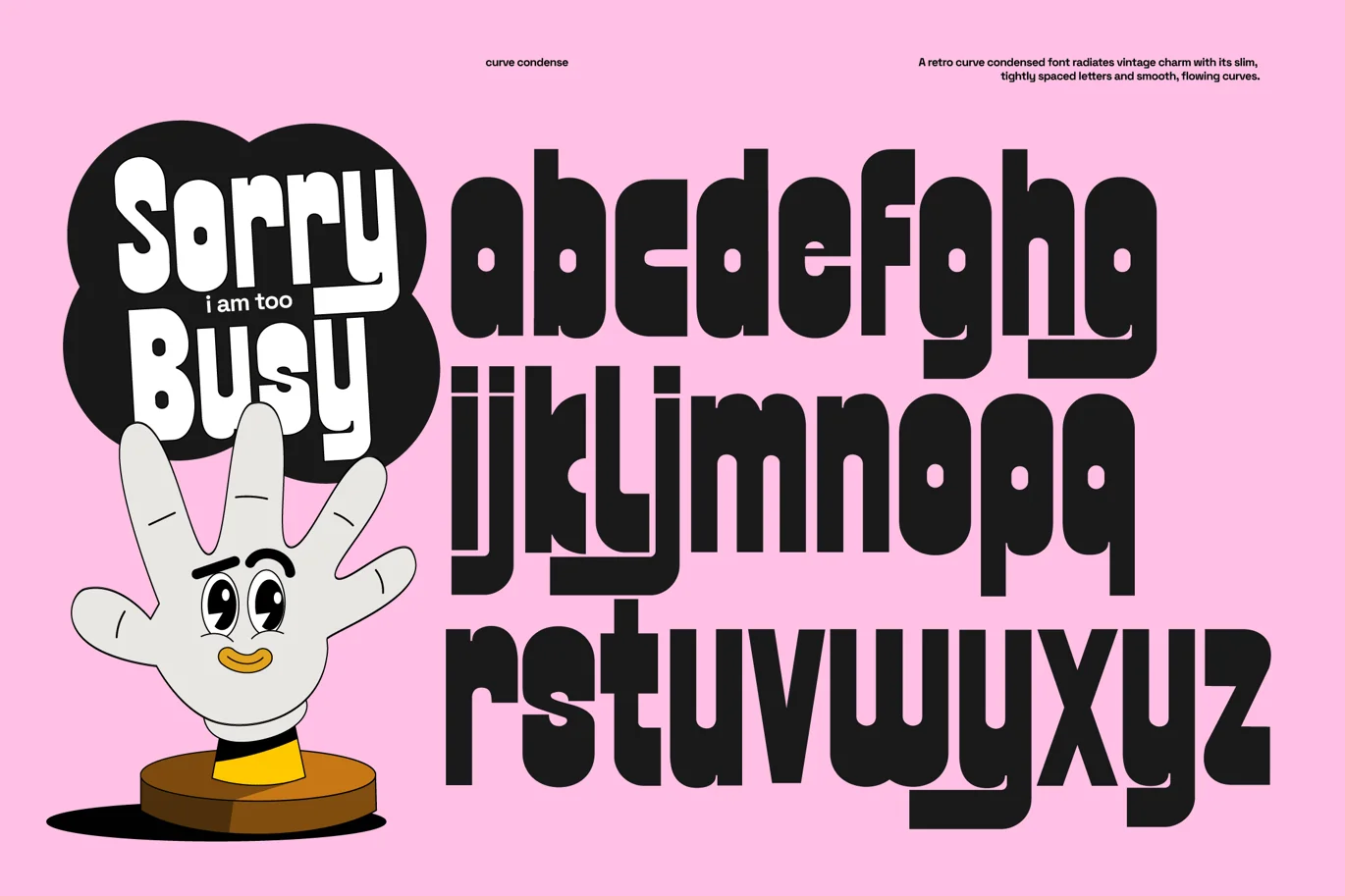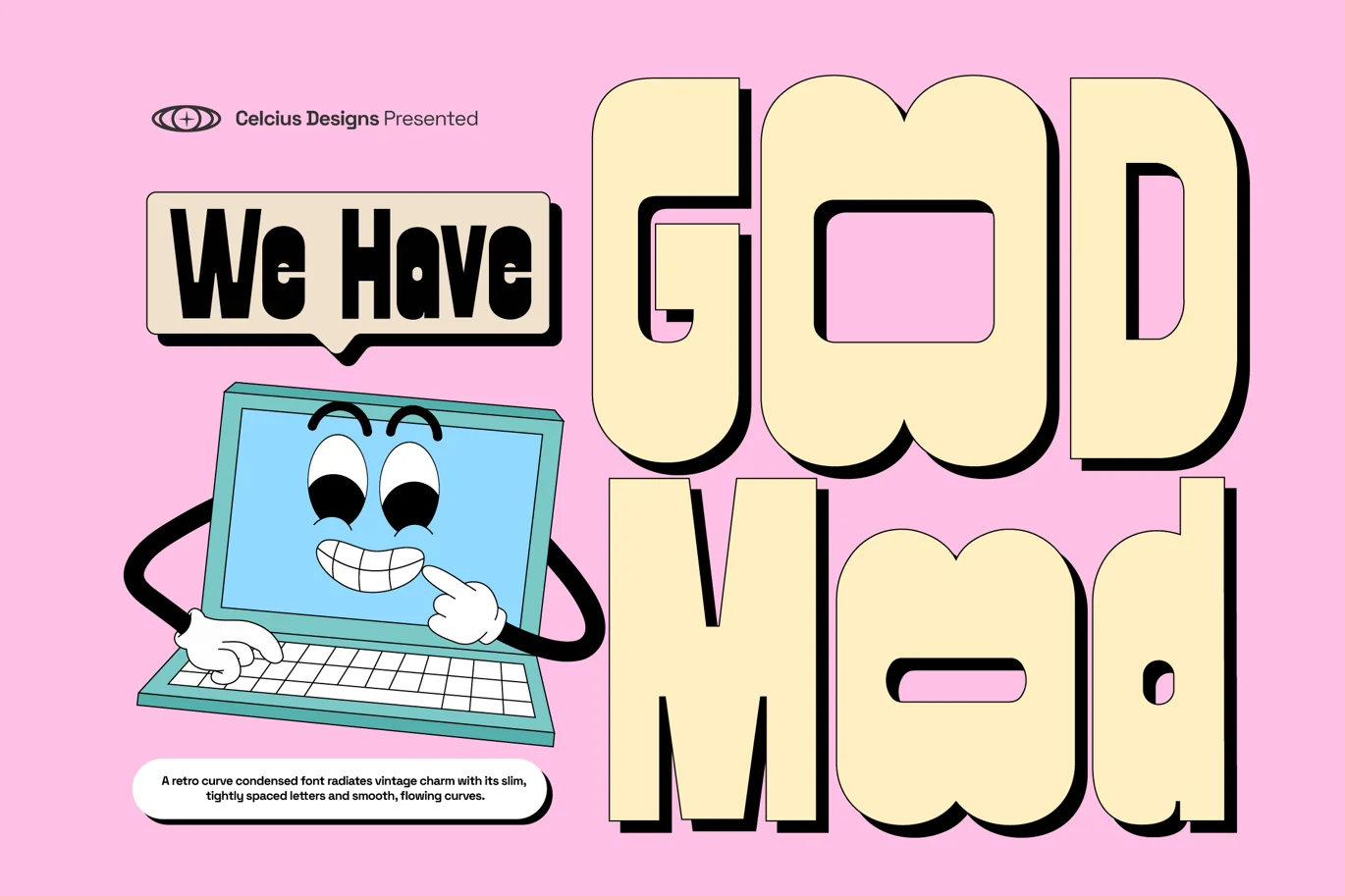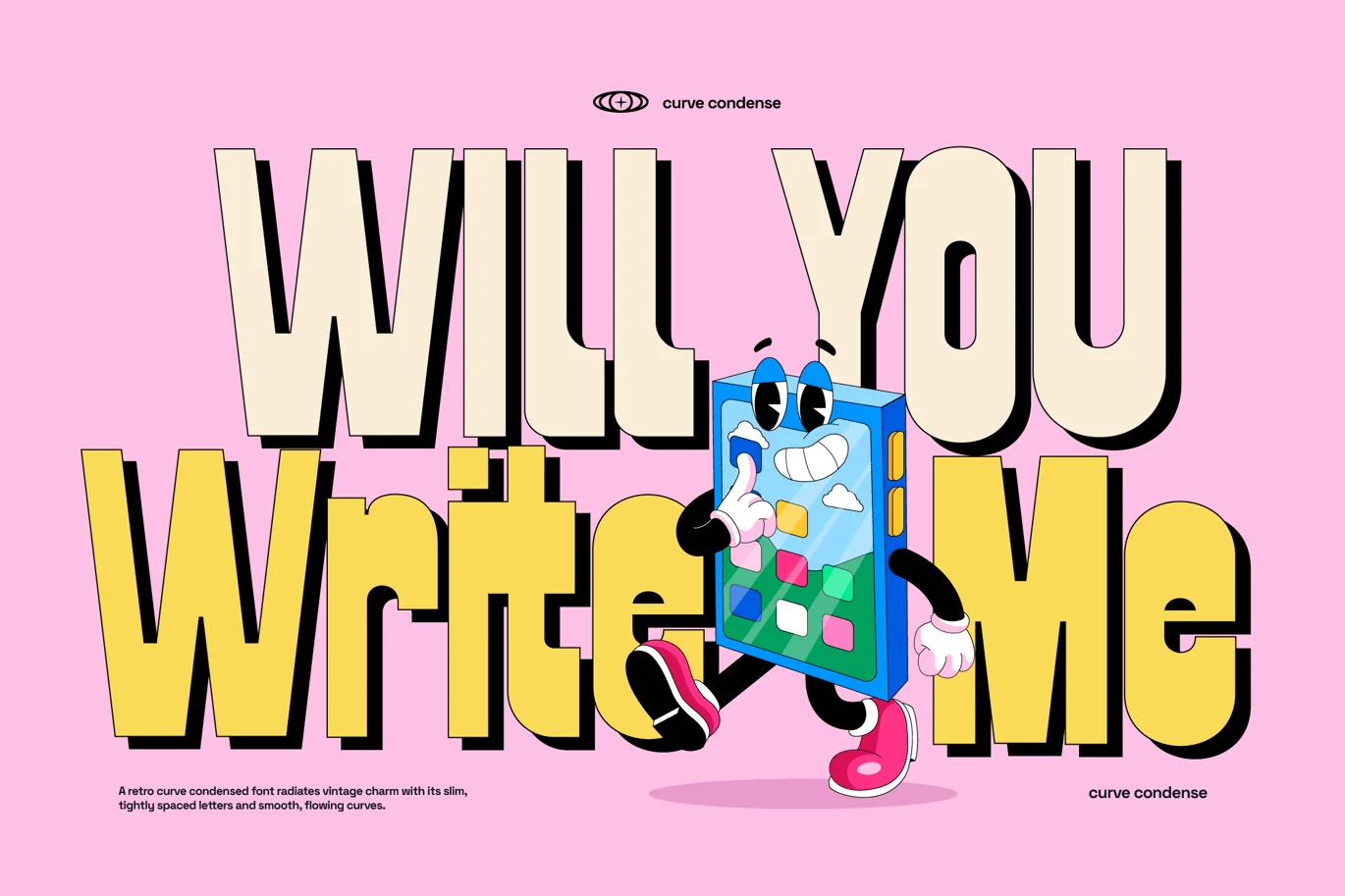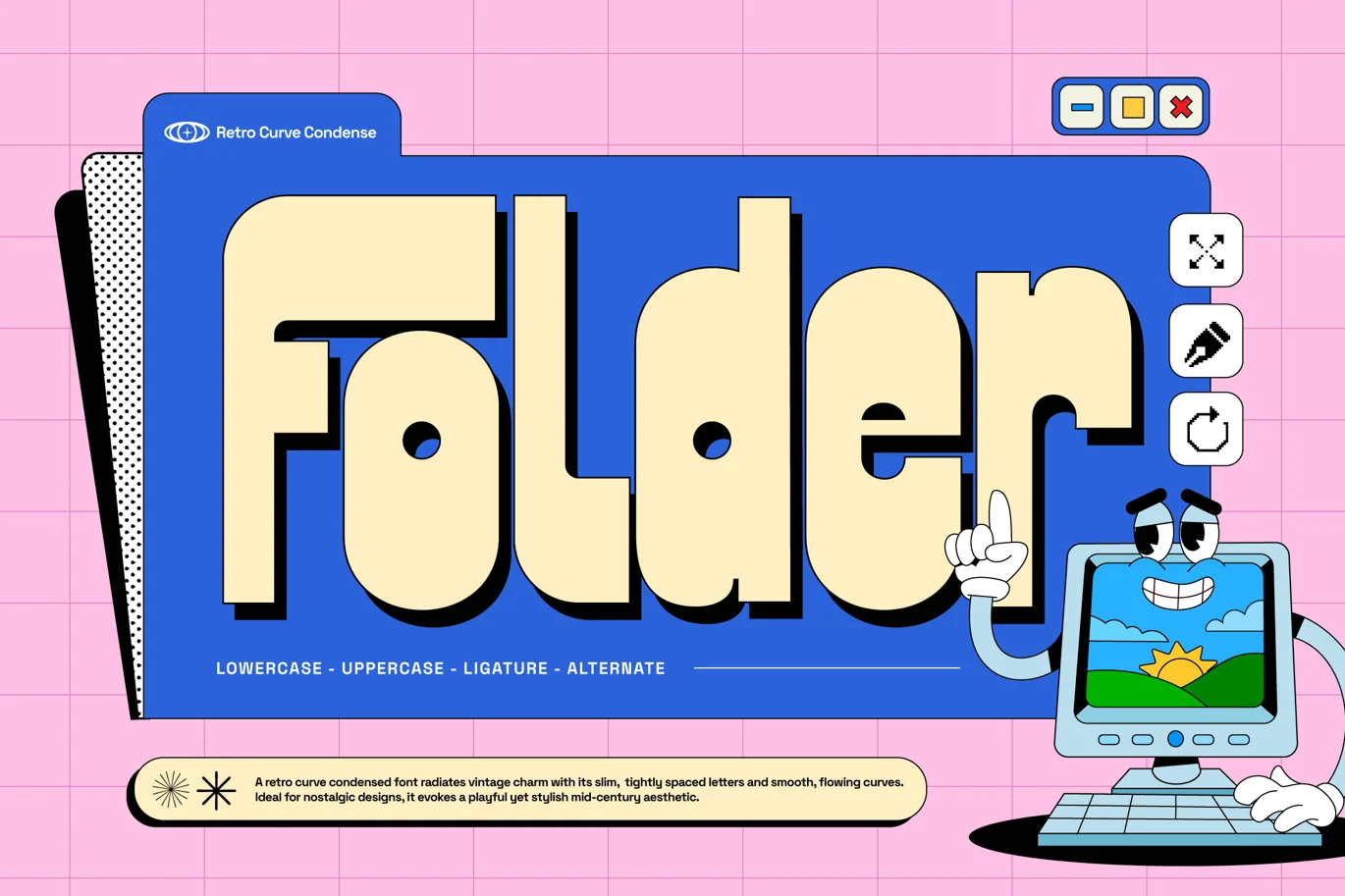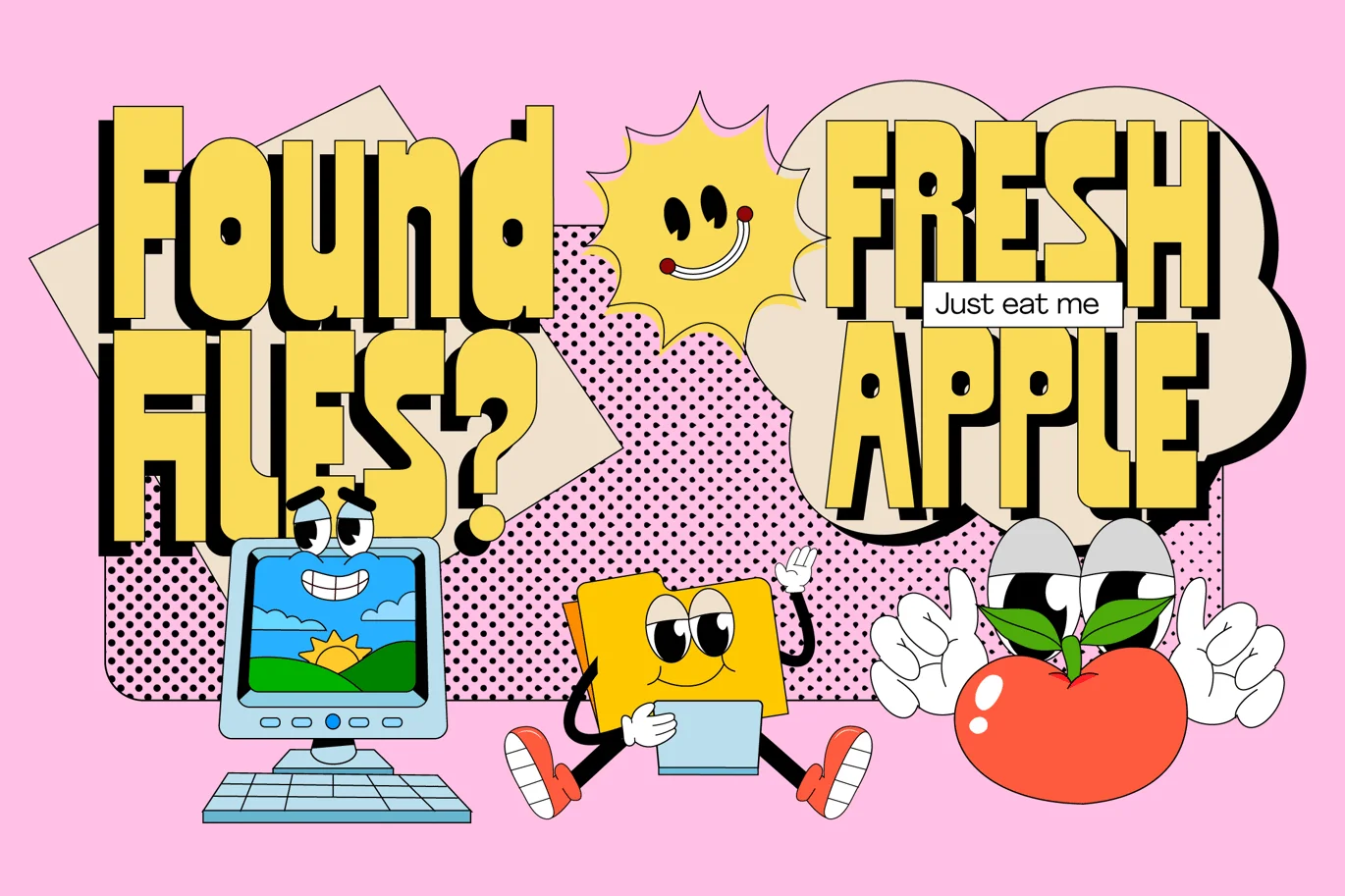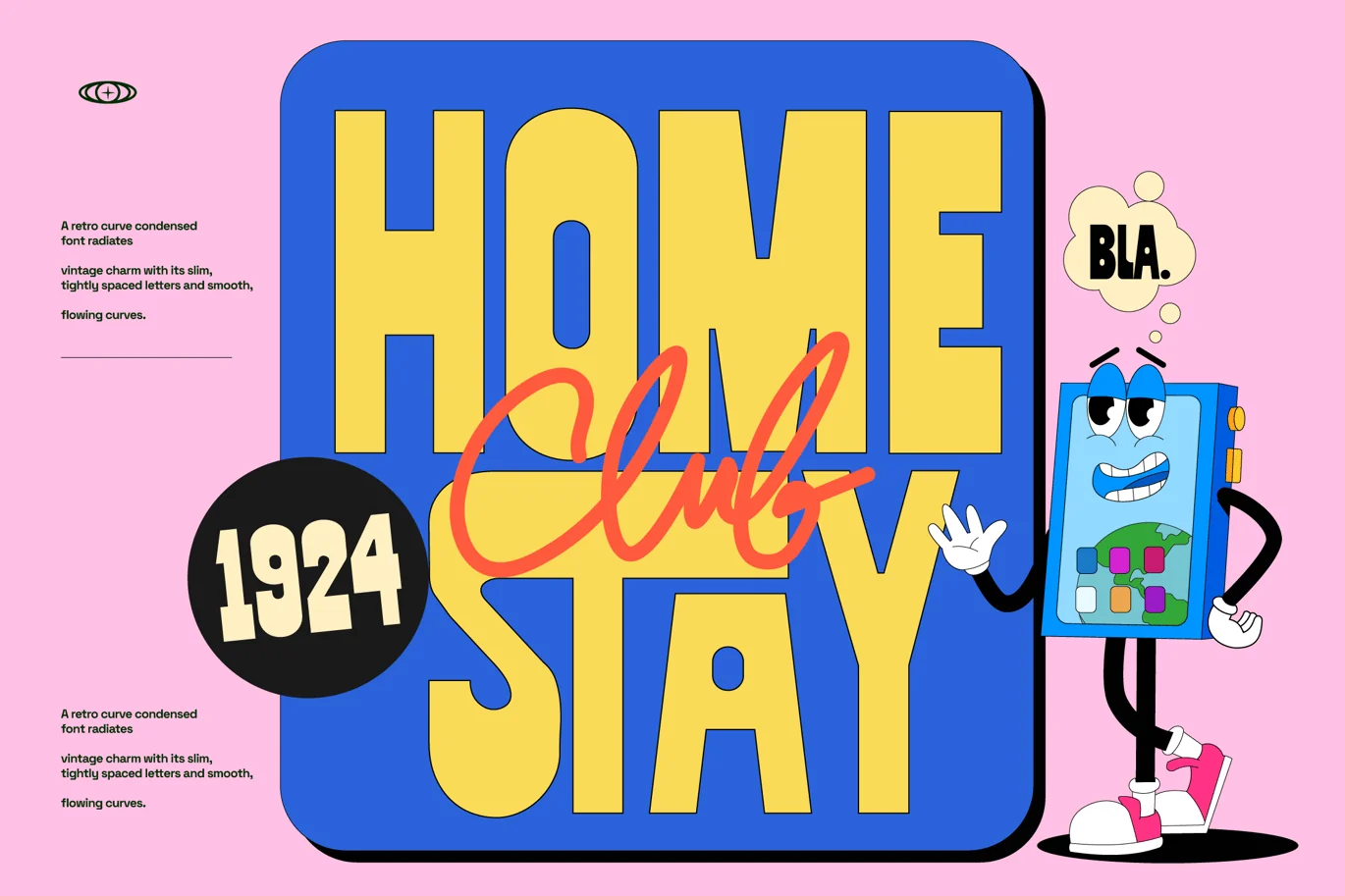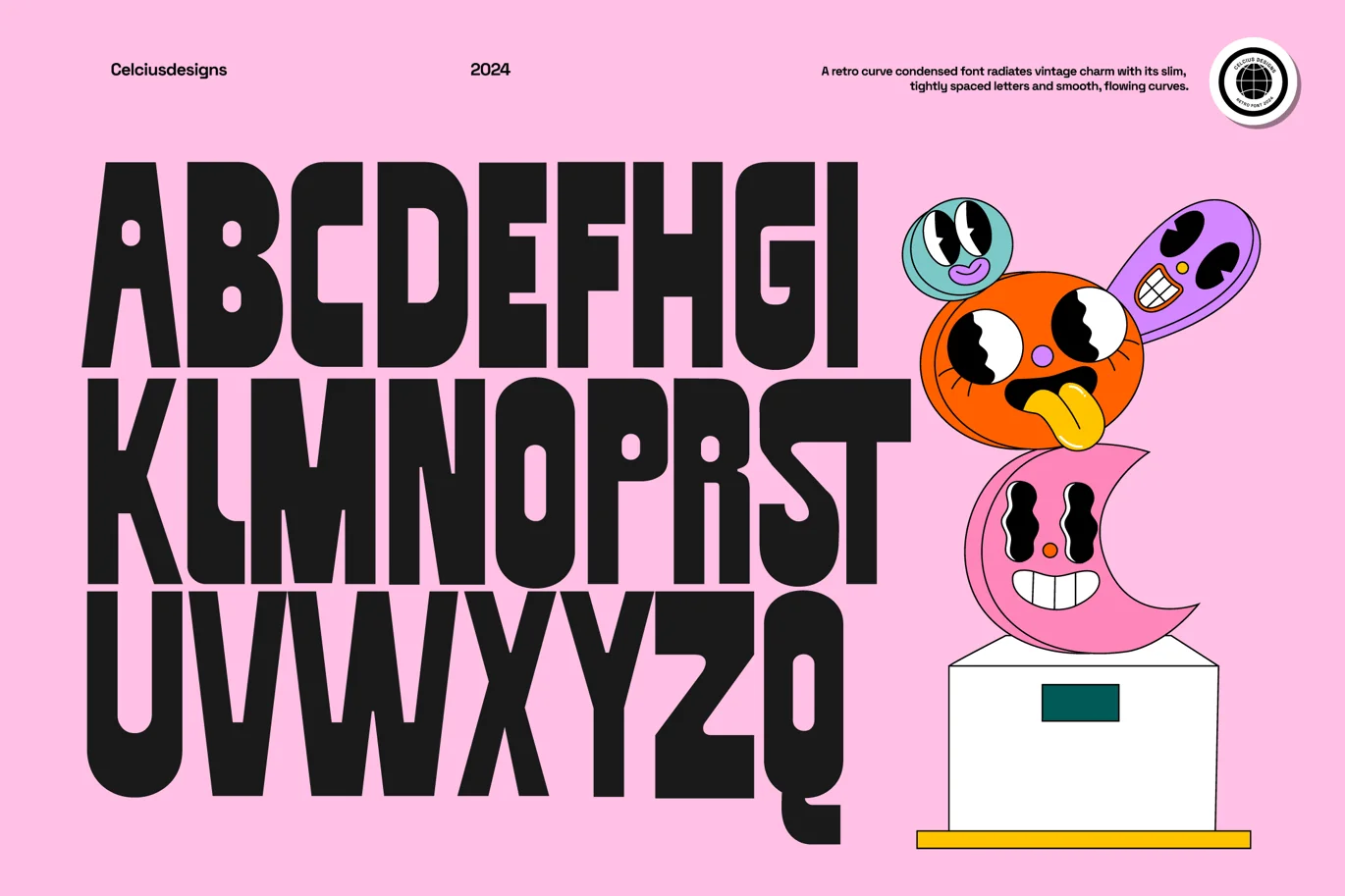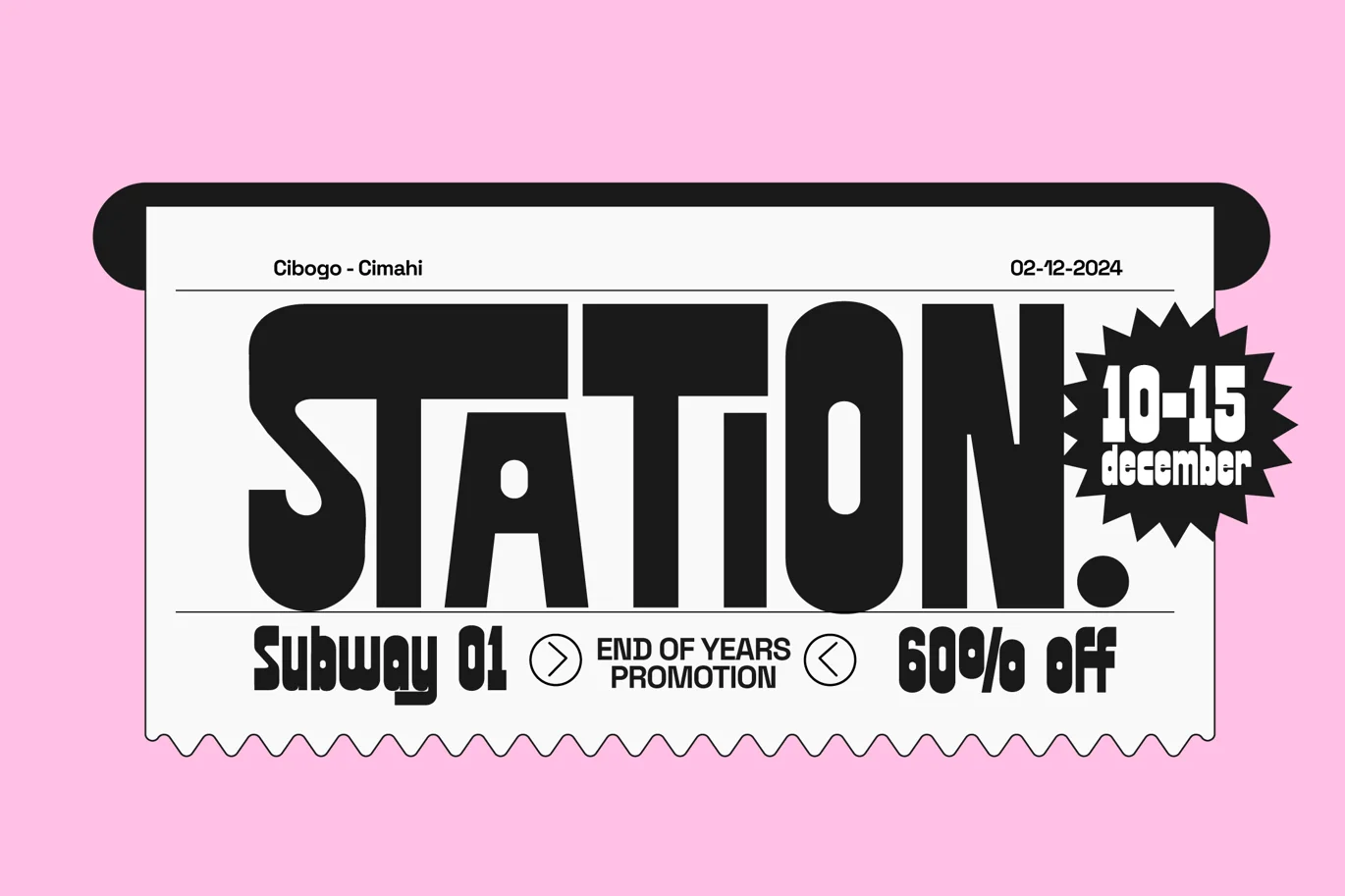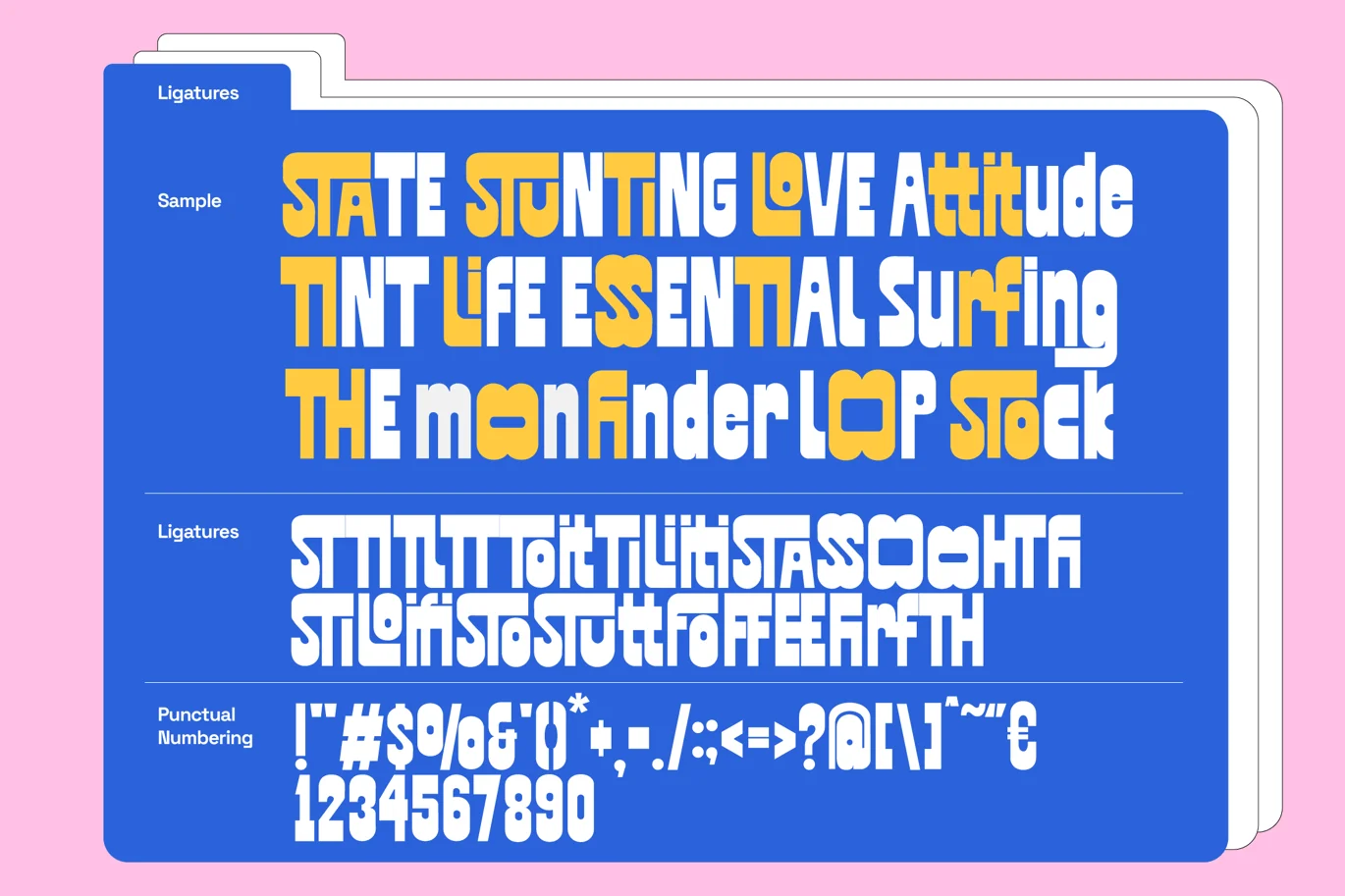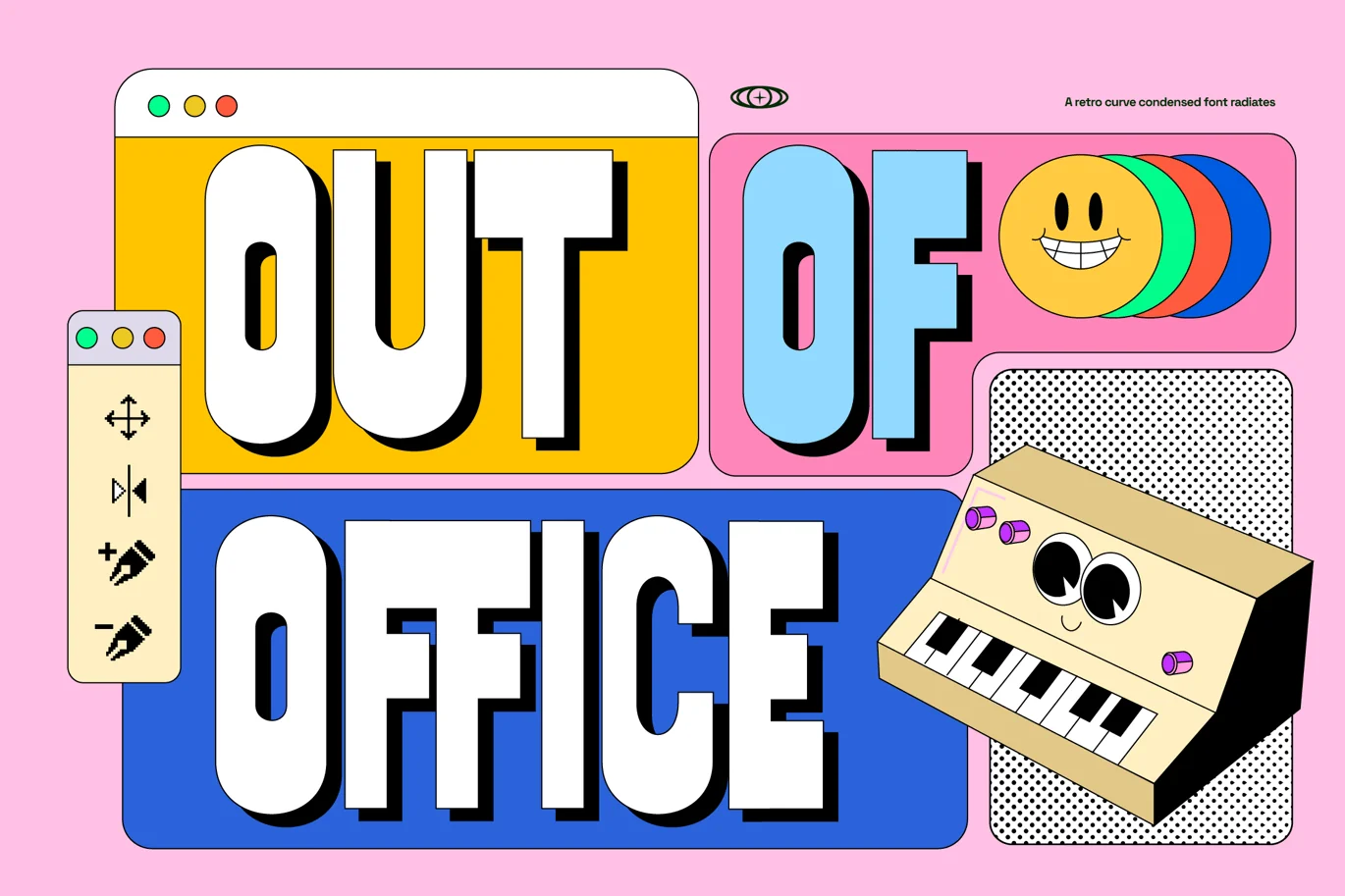
Folder Retro Font
A retro curve condensed font captures the nostalgic essence of mid-20th-century design with a sleek and streamlined aesthetic. Its narrow letterforms save space while maintaining bold visibility, making it ideal for vintage-inspired posters, signage, and branding. The smooth, flowing curves evoke a sense of rhythm and energy, reminiscent of retro advertisements and classic typography. Combining geometric precision with playful flair, it seamlessly bridges the gap between sophistication and fun. Its versatility allows it to stand out in both minimalist and intricate designs, lending a timeless yet distinctive personality. Perfect for projects that celebrate heritage with a modern, stylish twist.